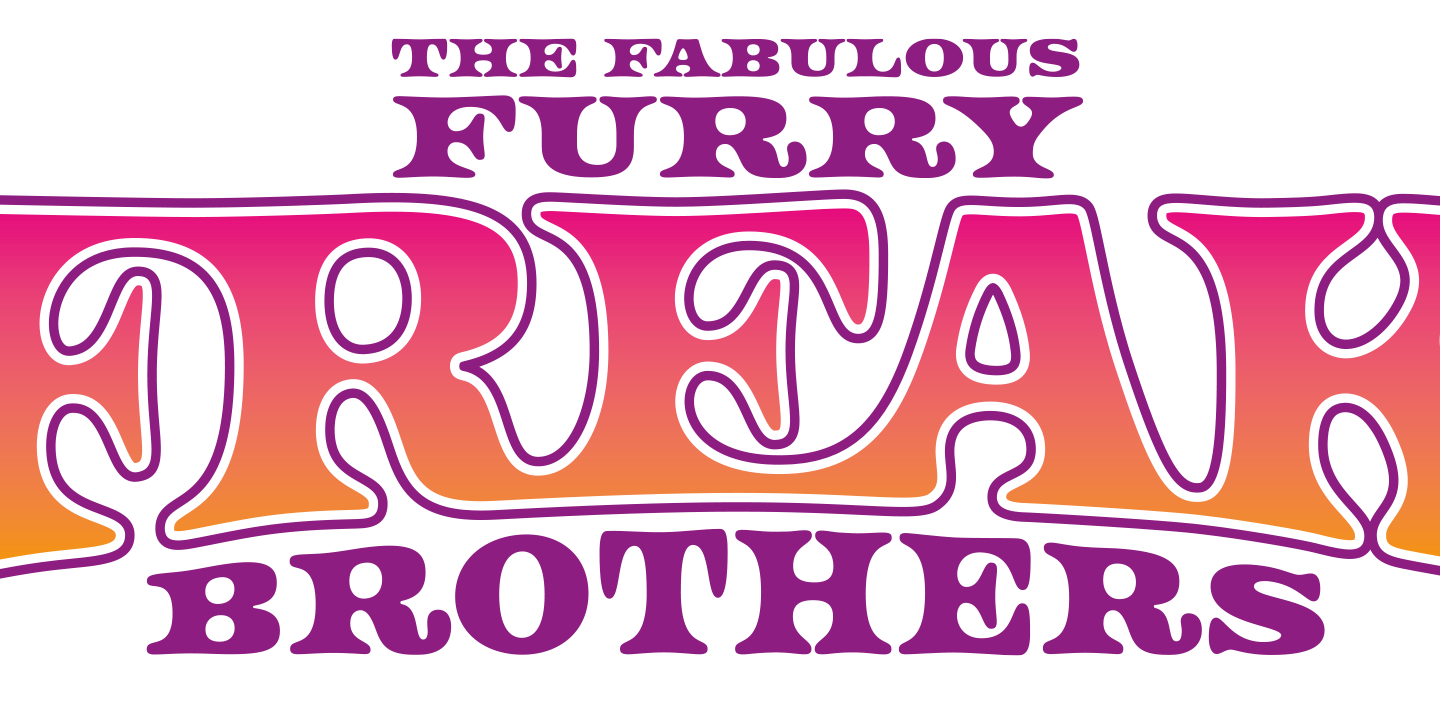
This liberated typeface excels in independent brewery branding, craft pub signage, artisan distillery labels, creative agency portfolios, freelance designer materials, bohemian lifestyle brands, artistic freedom campaigns, and unconventional business communications. Its unrestricted character makes it perfect for projects celebrating independence and creative self-expression.
Freehouse Font generates excitement through its unbound spirit that captures the essence of creative liberation and entrepreneurial freedom. The font's flowing lines and unrestricted letterforms create an atmosphere of artistic independence that resonates with audiences seeking authentic experiences beyond corporate constraints. Its carefully crafted rebellious charm delivers approachable authenticity while maintaining professional readability that reflects the balance between creative freedom and business success.
The Freehouse Font family includes multiple liberation-themed variations such as regular, light, bold, script, and distressed styles. Each family member preserves the distinctive free-spirited aesthetic while offering different levels of rebellion for various independent applications. This emancipated collection allows designers to create compositions that celebrate the full spectrum of creative freedom from subtle nonconformity to bold artistic statements.
The Freehouse Font Free Download offers designers access to premium independent typography that brings authentic creative spirit to any project. Its liberated character and entrepreneurial appeal make it ideal for creating memorable freedom-focused brands and engaging independent communications. Whether developing craft business identities, designing artistic portfolios, or crafting unconventional marketing campaigns, this font provides the free-spirited appeal and creative authenticity essential for connecting with audiences who value independence, artistic expression, and the courage to pursue their own unique path.